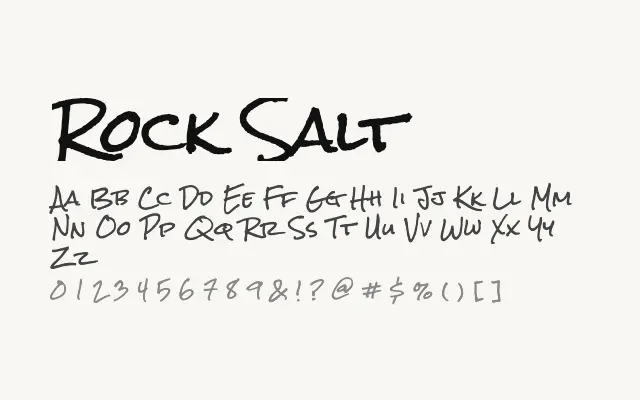
Rock Salt
A scratchy, marker-pen script that channels raw, handmade energy with deliberate roughness.
Rock Salt replicates the look of hastily scrawled felt-tip lettering, making it popular for casual branding, music event posters, and youth-oriented design. Its irregular strokes and loose rhythm give it an authentic lo-fi quality that works well at display sizes. It is a one-trick typeface — expressive but narrowly applicable.
Rock Salt mimics the look of rough, hand-scrawled text written with a dry felt-tip or marker, with deliberately uneven strokes and an informal, rebellious character. It sits firmly in the handwritten novelty category.